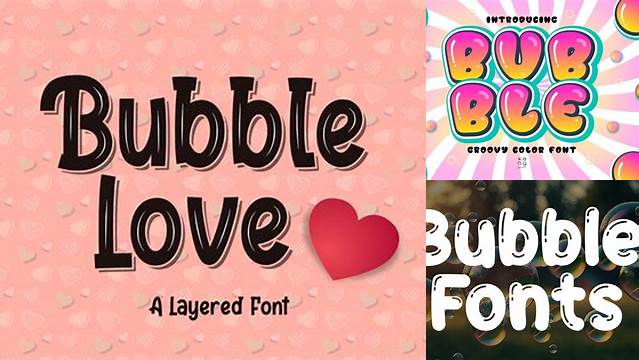
Awesome Bubble Fonts On DaFont You'll Love
Hey everyone! π Let's dive into the super fun world of bubble fonts! If you're looking for fonts that scream "fun," "playful," and "eye-catching," then you're in the right place. DaFont is a goldmine for fonts, and bubble fonts are some of the coolest options out there. In this article, we're going to explore some of the best bubble fonts you can find on DaFont. Get ready to boost your designs with these bubbly beauties! So, without further ado, let's get started! Get ready for a journey through the best bubble fonts on DaFont, designed to make your projects pop and grab attention. From playful designs to bold statements, we'll cover a variety of styles that cater to different creative needs.
Bubble Font Magic: What Makes Them Special?
Alright, guys, let's talk about what makes bubble fonts so special. Best bubble fonts dafont have a certain charm. They're inherently friendly and approachable, making them perfect for projects aimed at children, casual events, or anything that needs a touch of whimsy. The rounded, inflated shapes of these fonts give off a sense of joy and lightheartedness. Think of it like this: they're the typographic equivalent of a giant, inflatable pool toy! π
One of the best things about best bubble fonts dafont is their versatility. While they're often associated with fun and games, they can also be used in more serious contexts, especially when a touch of personality is desired. The fonts' bubbly appearance allows them to stand out in any design, so they can easily grab attention. Whether you're creating a poster, designing a website, or working on a social media campaign, bubble fonts can add a unique visual element. When used correctly, these fonts can significantly impact the overall tone and feel of a design. Consider the different ways you might use these fonts β as headlines, in body text, or within images and graphics. They can make your message more engaging and memorable, turning a simple design into something truly eye-catching. When you use them, you're not just choosing a font; you're choosing a vibe. π
Why Bubble Fonts Are Great
Bubble fonts have this unique ability to be both bold and inviting. Their inflated letterforms instantly capture attention, while their rounded shapes ensure they don't feel too aggressive. They're ideal for projects where you want to convey friendliness and approachability. They're a perfect match for projects that need a lively and fun vibe! They look great in posters, websites, logos, and much more.
Top Bubble Fonts on DaFont: Our Favorite Picks
Alright, let's get down to the good stuff! Here are some of our favorite bubble fonts you can download on DaFont, including both free and premium options. Each of these fonts brings something unique to the table, so you're sure to find a few that suit your style. Best bubble fonts dafont are easy to explore, because of how many options DaFont has. So get ready to find a few that will look amazing in your designs! π
1. Bubbler One
Bubbler One is a classic bubble font that's perfect for adding a touch of fun to any project. Its simple, clean design makes it incredibly versatile. You can use it for anything from children's books to social media posts. The font's readability is a huge plus. Its bubbly letterforms are easy to recognize even at smaller sizes. This makes it a great choice for headlines, logos, and anywhere else you need your text to stand out. The clear lines and rounded shapes ensure it remains visually appealing without being overly complex. So, Bubbler One could become your go-to font for many design projects. The font has a clean aesthetic that makes it super versatile, ensuring it looks good in many uses. Itβs easy to read, which is a massive plus when working on various types of projects. You'll want to test it out for yourself and explore it! π€©
2. Bubblegum
Oh man, this font is all about that classic, sugary bubble gum aesthetic! It's bold, rounded, and instantly recognizable. Bubblegum font is perfect for anything that needs a playful, retro vibe. If you're working on a project that screams βfun,β then you NEED this font! It adds a vintage touch to your projects. Bubblegum font is a great choice when you want to evoke a sense of nostalgia. It's a great option for posters, invitations, or any design where you want to bring a smile to the viewer's face. π₯³
3. KR Bubble Blocks
KR Bubble Blocks brings a playful, blocky twist to the bubble font family. It has rounded corners and sturdy lines that create a cool, contemporary look. It's ideal for projects that need a modern touch while still maintaining that bubbly feel. It brings a balanced, yet playful feel. KR Bubble Blocks is great for headlines, posters, and website graphics, adding a unique visual style. It's a fun alternative when you want to move away from overly soft designs. This font's unique blocky structure sets it apart from typical bubble fonts. Its unique appeal makes it a great choice for a wide range of creative applications. π
4. Chubble Bubble
Chubble Bubble offers a more quirky and whimsical appearance. Its unique letterforms and added details make it ideal for anything that needs a touch of personality and artistic flair. Each letter has its own unique touch, making it stand out from more common fonts. It can give a personalized touch to projects, turning them into something memorable. This font is perfect for designs that aim to captivate and charm. It can be used to enhance the visual appeal of any creative endeavor. π¨
Choosing the Right Bubble Font for Your Project
Choosing the right font is about more than just aesthetics. It's about understanding your project's needs and how the font can enhance your message. Best bubble fonts dafont offer a range of styles, from classic and simple to quirky and detailed. Consider the overall tone of your project, the audience you're targeting, and the specific message you want to convey. If you're working on a children's book, you might go for something playful and whimsical. If you're designing a website, you might opt for a font that is both fun and easy to read. π€
Conclusion: Unleash Your Creativity with DaFont's Bubble Fonts
Well, folks, there you have it! We've taken a deep dive into the best bubble fonts dafont and explored their endless possibilities. Now itβs time to go out there and unleash your creative side! Armed with these tips, you're now ready to use DaFont to find some truly awesome fonts. Whether you're designing a website, creating social media posts, or working on a personal project, bubble fonts can make your designs pop. Get creative and have fun. Don't be afraid to experiment with different fonts and designs. Happy designing, everyone! π